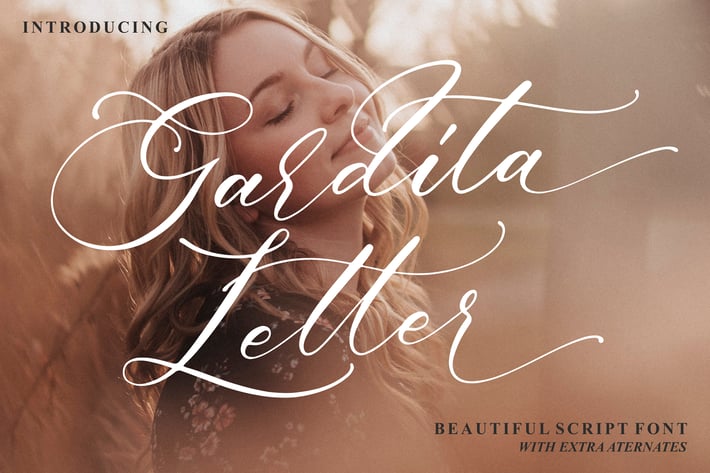
Gardita Letter Script Font
Gardita Letter Script is a graceful handwritten font that captures charm, sophistication, and romantic elegance. Designed with smooth curves and natural strokes, it combines classic calligraphy artistry with a modern feminine touch — perfect for adding warmth and luxury to your creative designs.
Elegant handwritten script with soft, flowing lines
Smooth ligatures and alternate characters for creative styling
Balanced between elegance and legibility
Romantic, refined, and effortlessly graceful — Gardita Letter Script brings timeless beauty to every design.